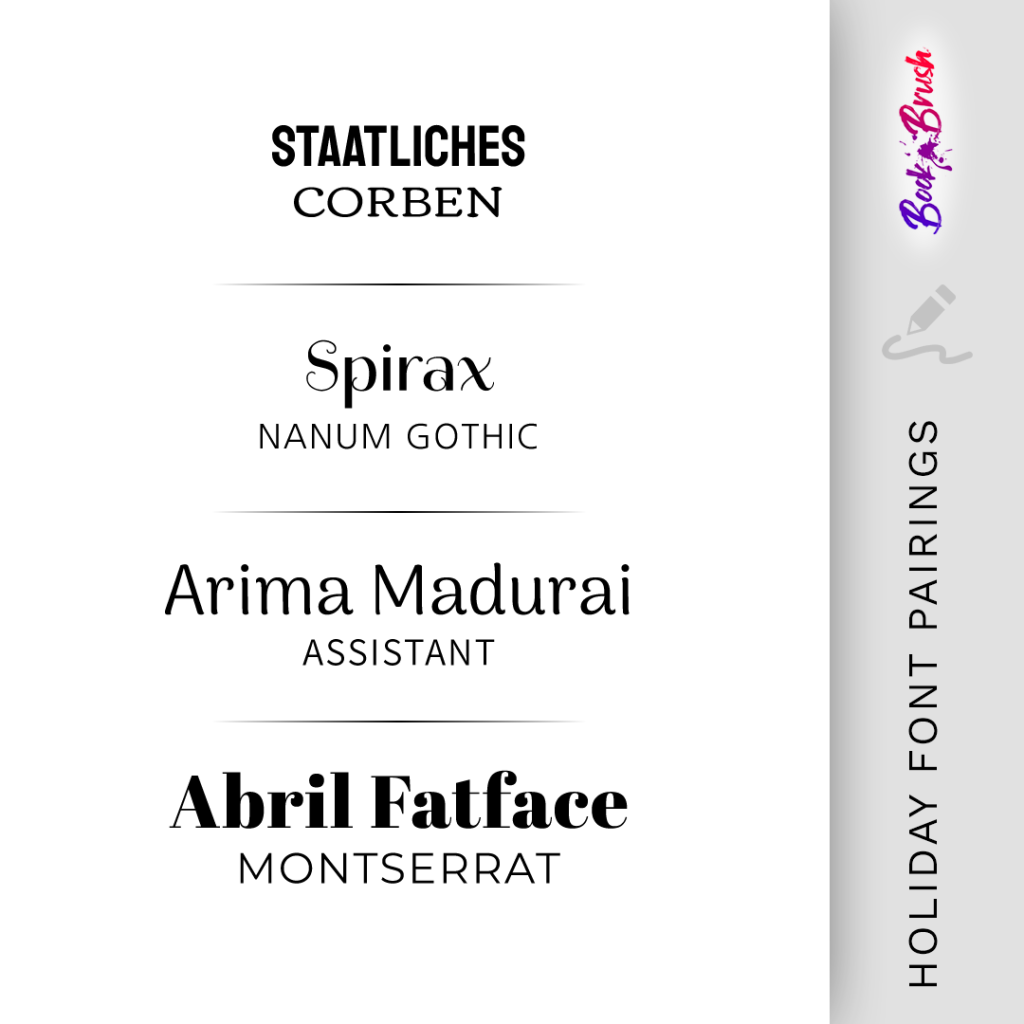
The Best Book Cover Fonts To Use For Your Holiday Book
There’s something magical, festive, and nostalgic about a holiday book cover, and the type of font used plays a major role in that. The font you use can make or break a book cover. When a reader looks at a book cover, they should be able to tell the genre immediately. When the wrong font is used, it leaves the reader confused, and it could make the overall appearance of your book look messy. If you’re working on designing a holiday book cover and don’t know where to begin, you’re in the right place!
Below, we’ll dive into the best book cover fonts and font pairings to use for your holiday book.
The Best Book Cover Fonts To Use For Your Holiday Book
• Parisienne
This is a soft and elegant font to use, which would be a perfect addition to a holiday romance book cover.
• Cinzel Decorative
The ends of each letter have a nice, fun, and easy-going flair to them, which would be the perfect font to use on a cozy holiday book cover.
• Mountains of Christmas
The name of this font speaks for itself. It brings nostalgic and festive vibes, which makes it a great option when creating a cozy holiday book cover or a children’s holiday book cover.
• Cinzel
While this font might seem simple, the little curve at the end of the letter provides a little personality to it. This would be a nice font to use on winter fantasy book covers.
• Italiano
This font brings classy, timeless, and romantic vibes. It’s fancy but still readable. You could easily use this font for a romantic holiday book cover.
• Luckiest Guy
This font is fun, bold, and cheerful. This would be an excellent font to use on a children’s holiday book.
• Bigelow Rules
Bigelow Rules is full of personality, which is exactly what you want in a font for a book cover. It’s a unique, sleek, and nostalgic font. You can use it for a cozy Christmas book cover.
The Best Book Cover Font Pairings To Use For Your Holiday Book
Choosing the right font pairing is important. They both need to be clear, readable, and flow well together. Below are some of the best font pairings for holiday book covers.
Additional font pairings that go well together include:
• Cinzel (Title) and Montserrat (Body)
• Bigelow Rules (Title) and Open Sans (Body)
• Italiano (Title) and Open Sans (Body)
• Cinzel Decorative (Title) and Raleway (Body)
• Parisienne (Title) and Libre Baskerville (Body)
• Bigelow Rules (Title) and Playfair Display (Body)
• Merriweather (Title) and Open Sans (Body)
• Brittany Signature (Title) and Cormorant Garamond (Body)
• Italiano (Title) and Lora (Body)
In Conclusion